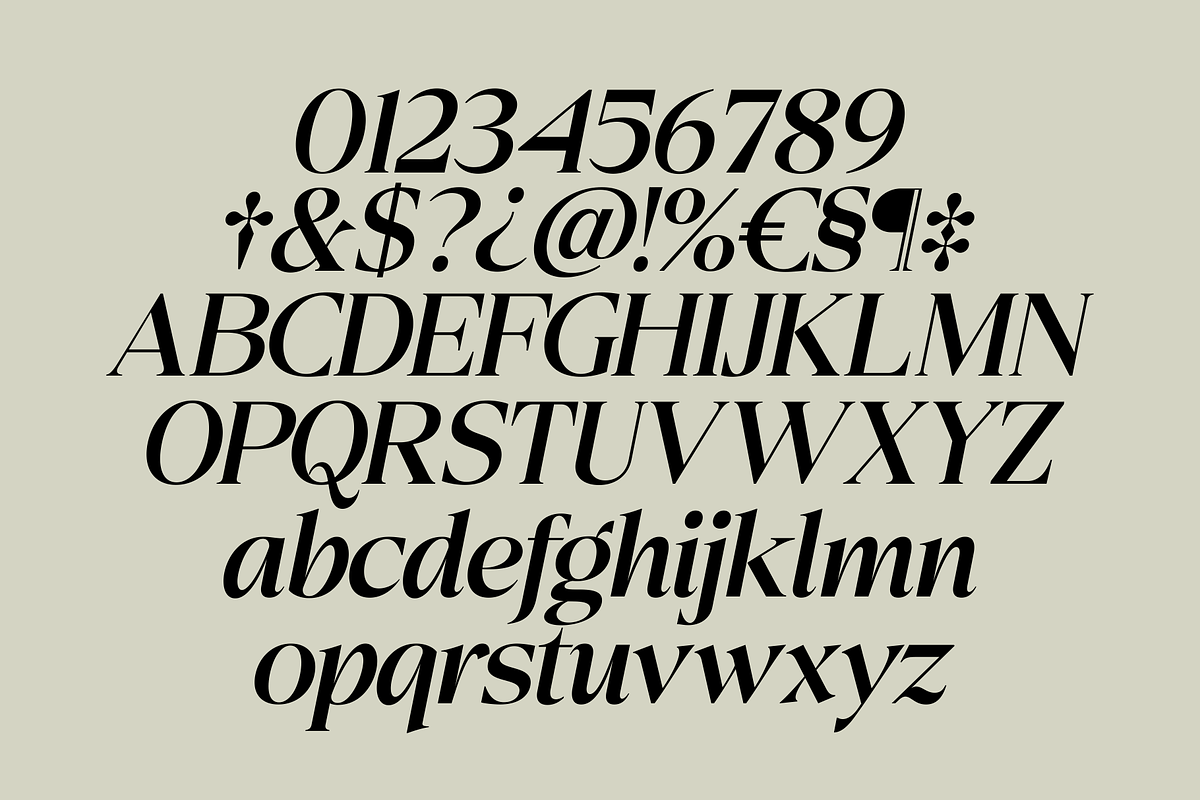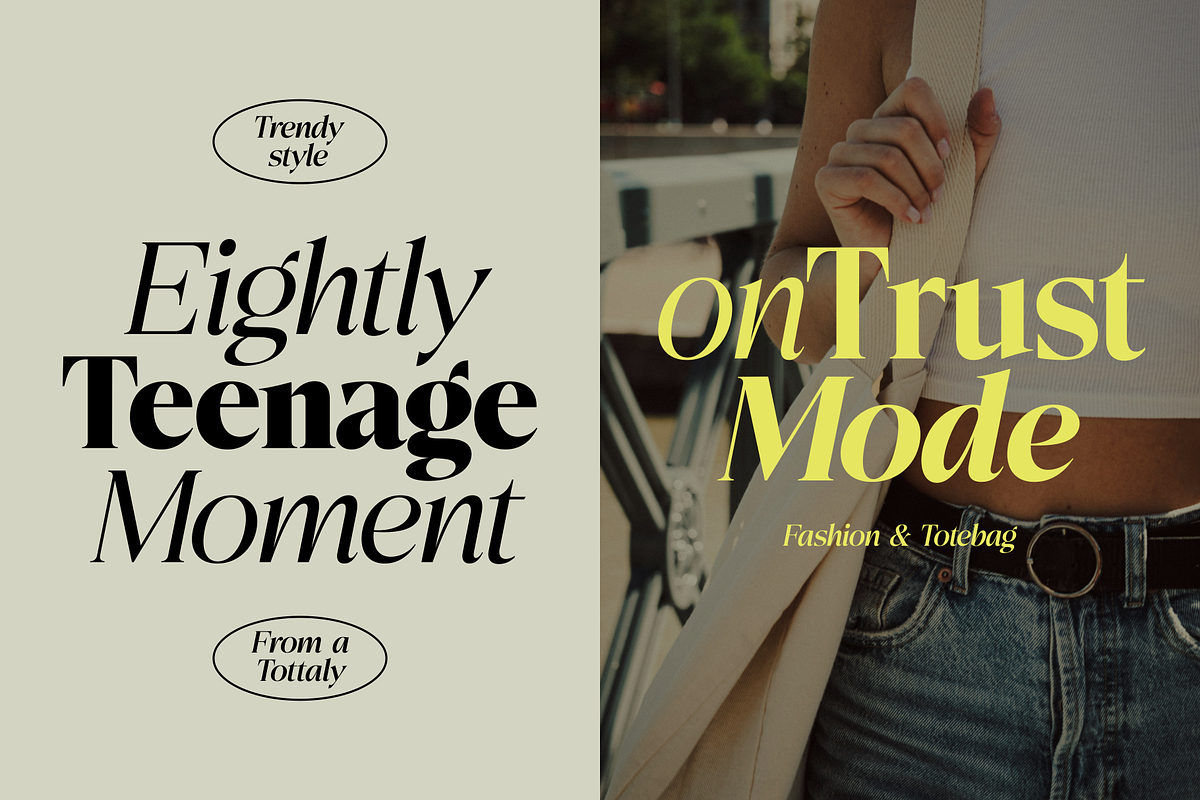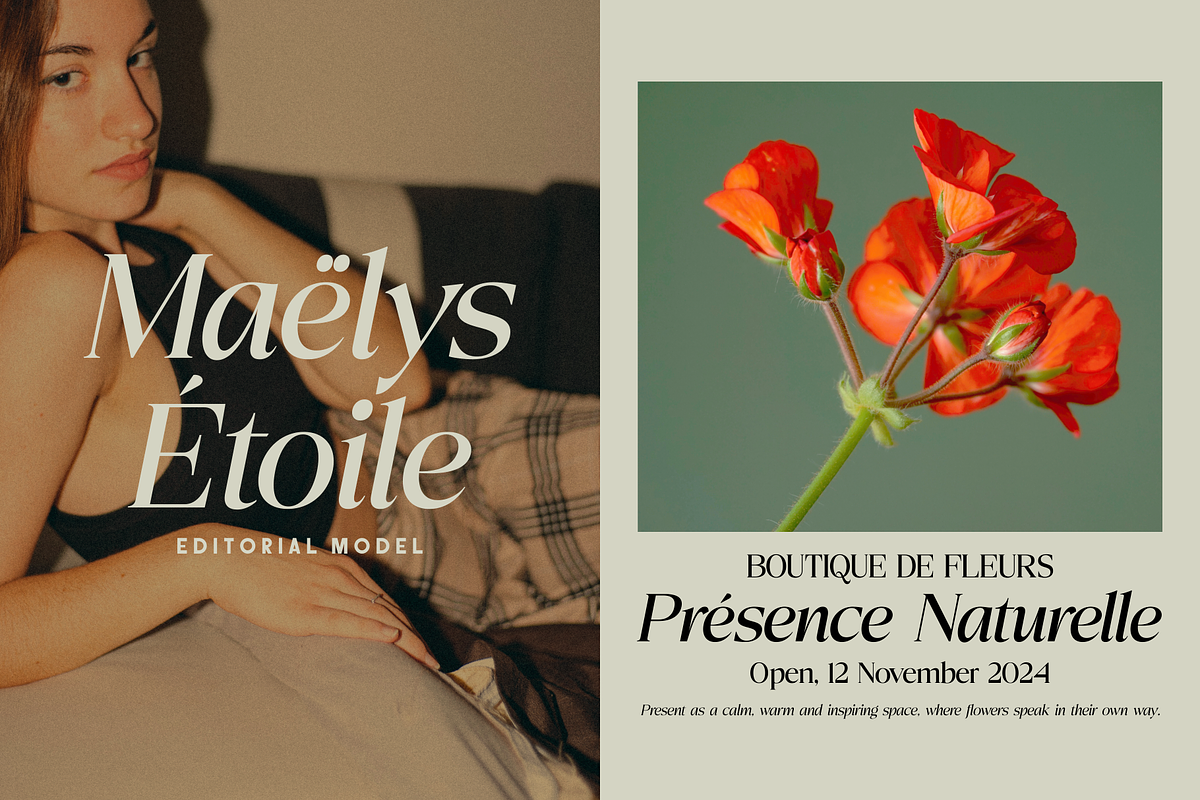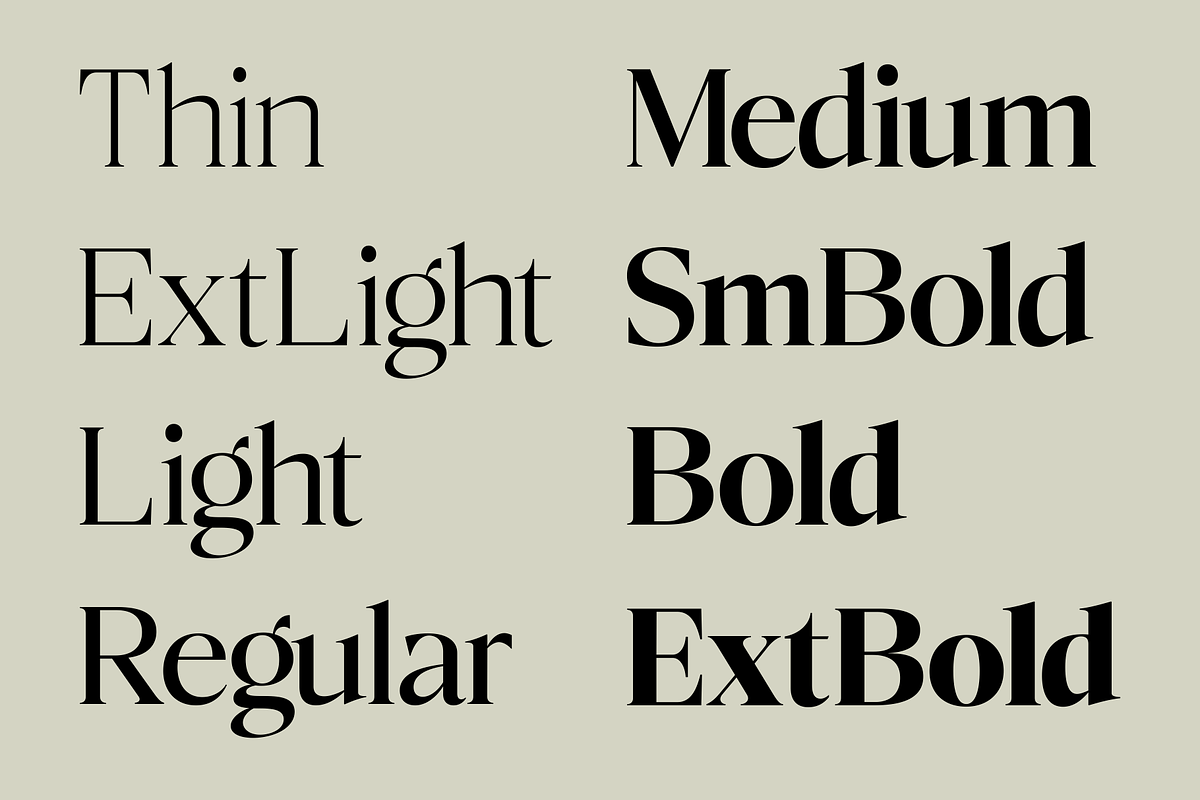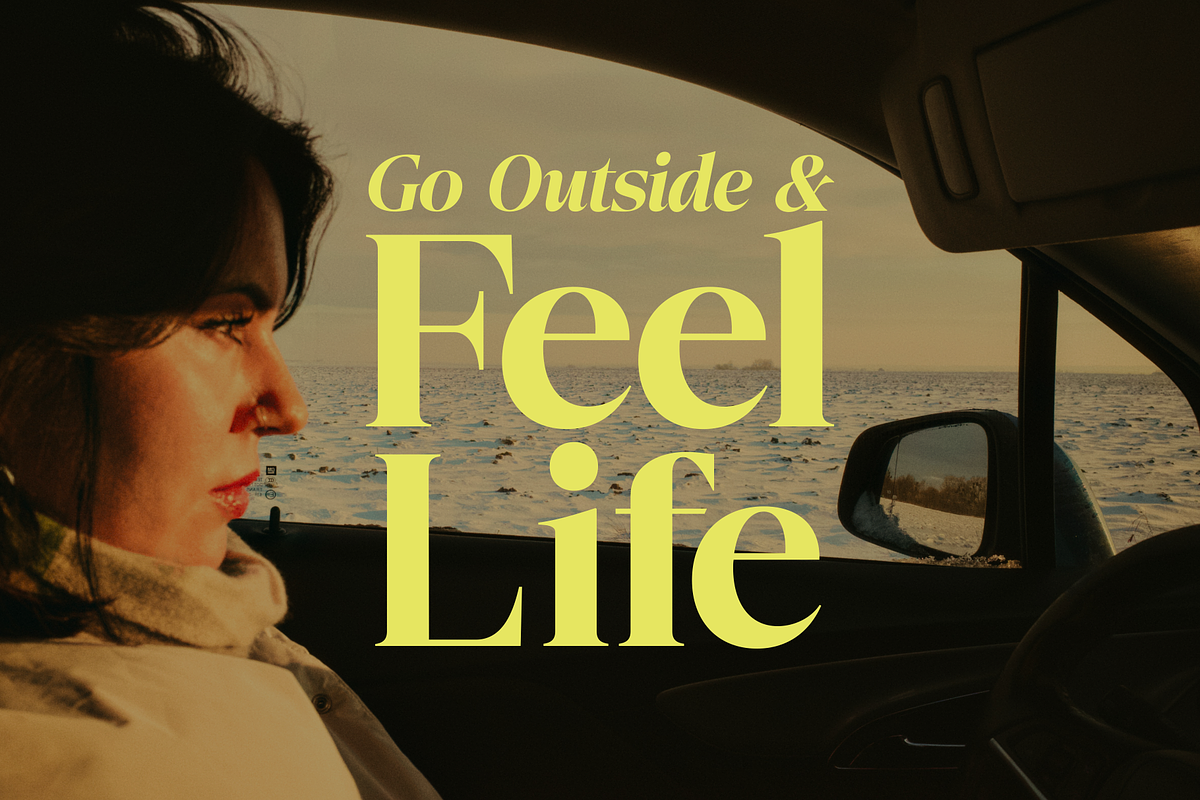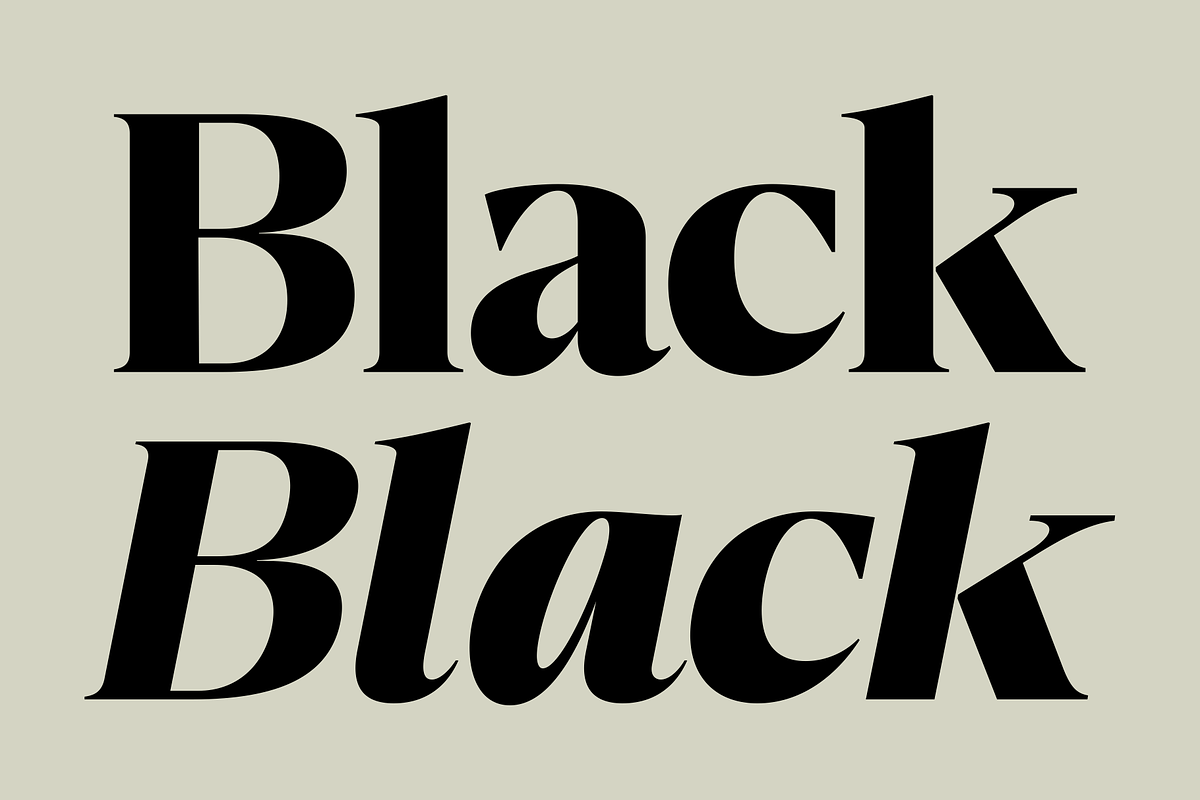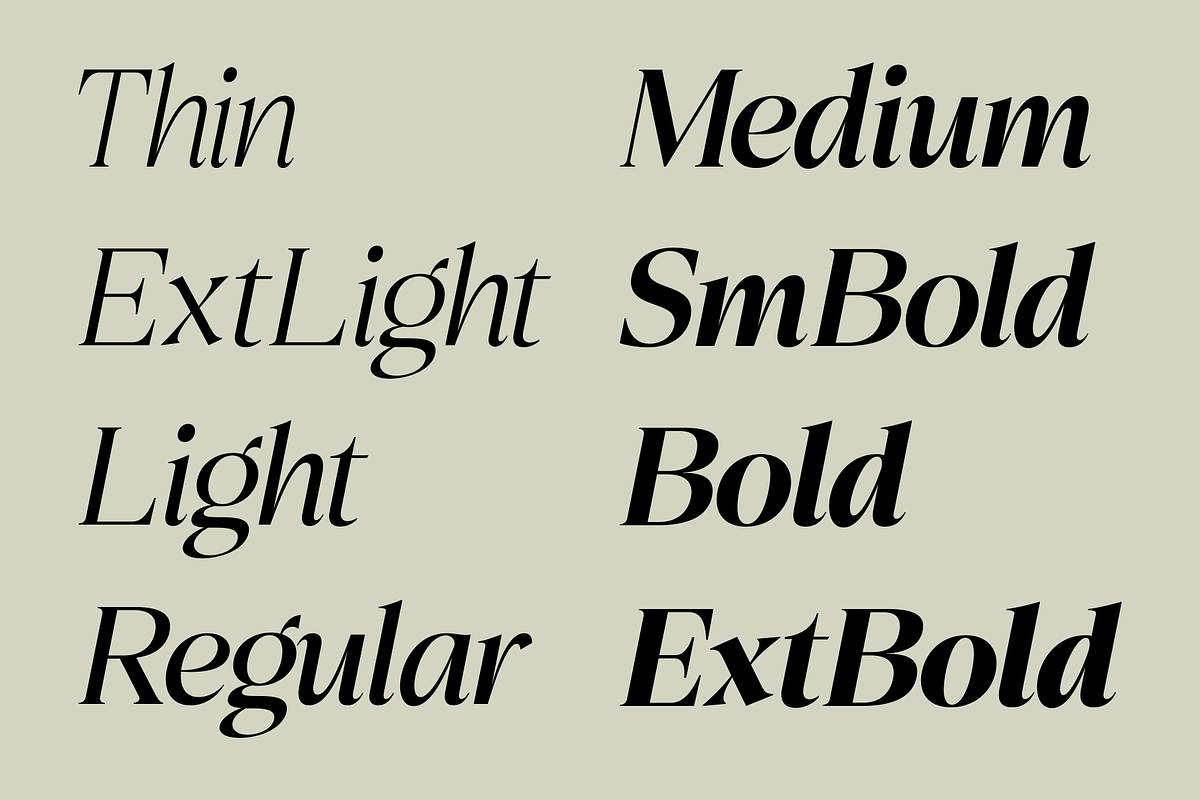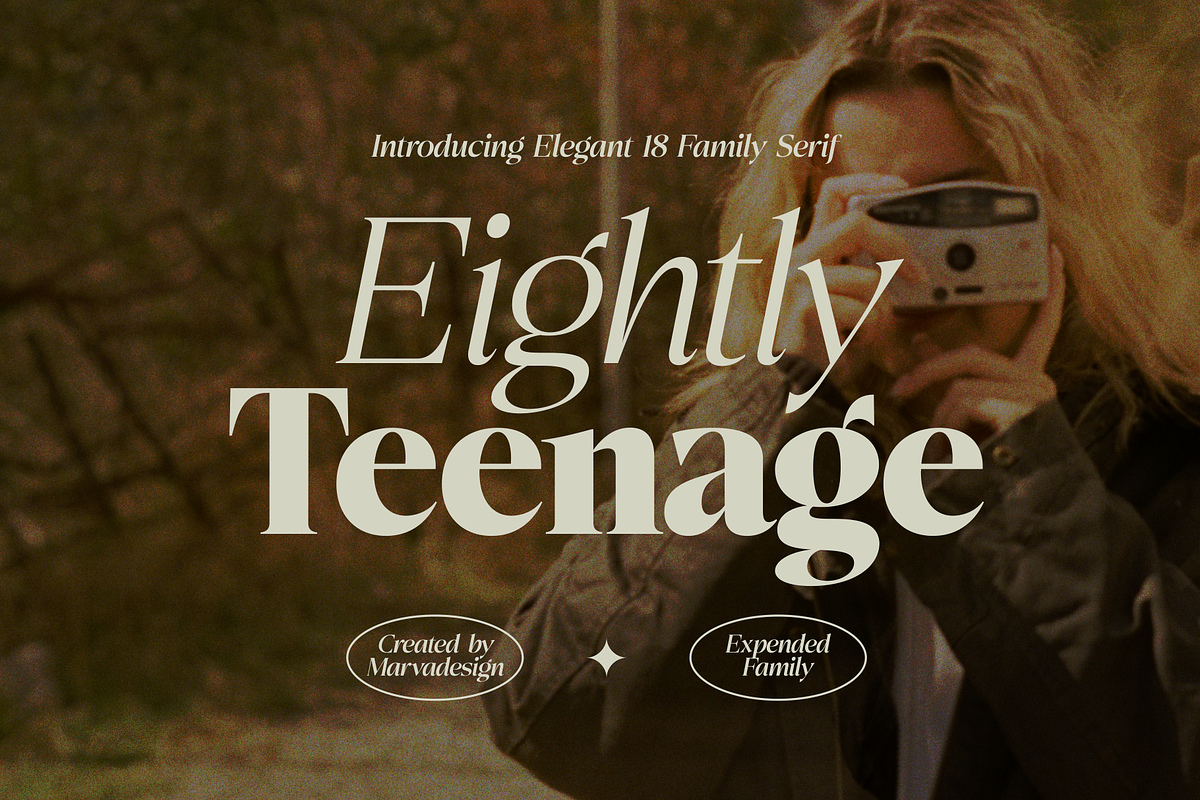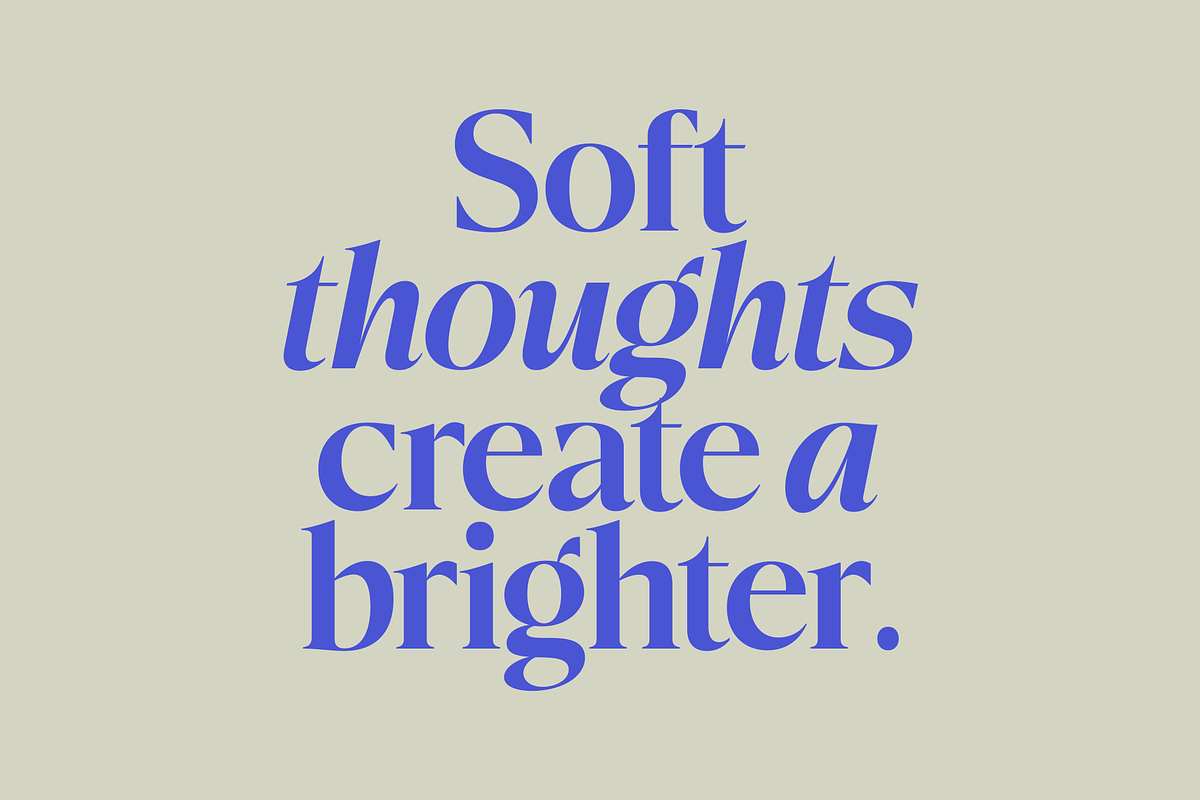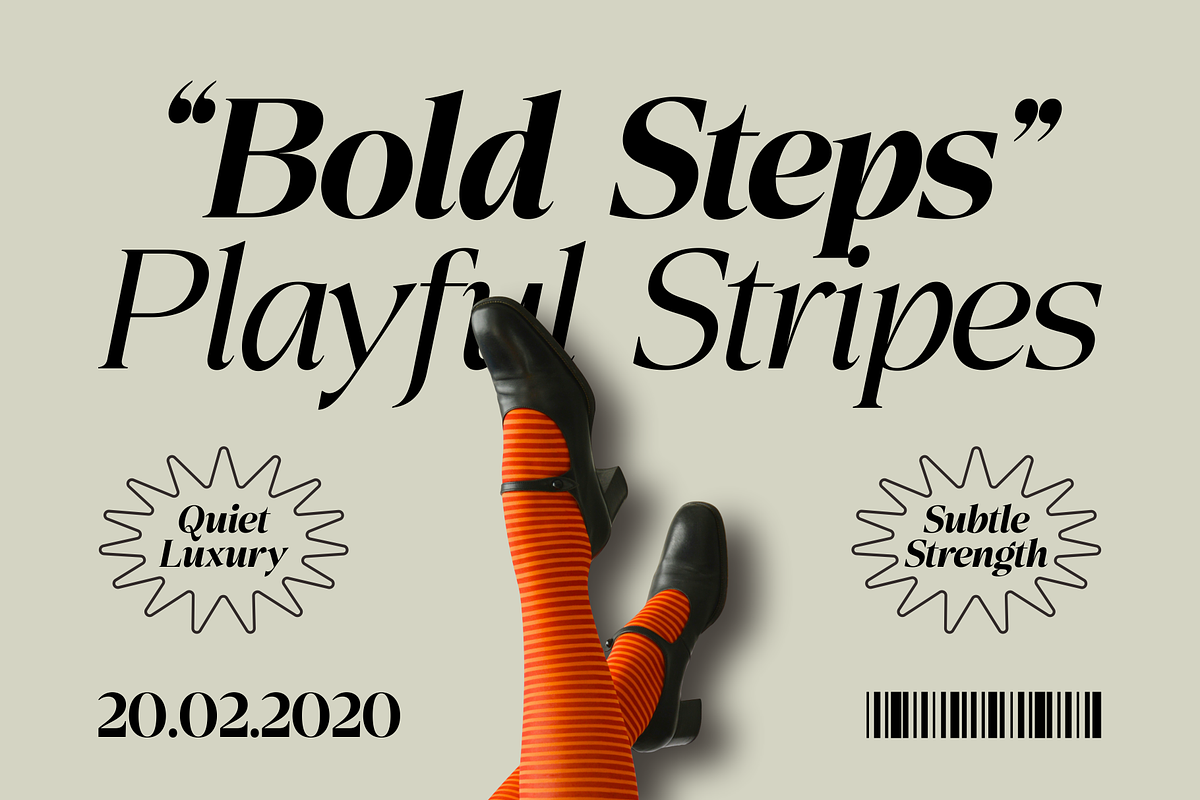
Eightly Teenage - Family Serif
Eightly Teenage is an elegant serif typeface that blends classic sophistication with a youthful, contemporary attitude. Its letterforms are characterized by high contrast between thick and thin strokes, refined curves, and subtly sharp terminals that give the font a confident yet graceful presence. The proportions feel timeless, while the expressive details introduce a modern edge, making it stand out without appearing overstated.
Designed as an expanded family, Eightly Teenage offers a wide range of weights from Thin and Extra Light to Bold and Extra Bold allowing for flexible typographic hierarchy within a single visual system. Lighter weights feel airy and editorial, perfect for fashion headlines or refined branding, while the heavier styles deliver strong impact for posters, titles, and statement typography. Overall, Eightly Teenage is well-suited for fashion, lifestyle, editorial layouts, luxury branding, and modern visual identities that seek a balance between elegance, attitude, and trend-forward design.
The styles include
- Thin
- Thin Italic
- ExtraLight
- ExtraLight Italic
- Light
- Light Italic
- Regular Italic
- Medium
- Medium Italic
- SemiBold
- SemiBold Italic
- Bold
- Bold Italic
- Extra Bold
- Extra Bold Italic
- Black
- Black Italic
- Variable